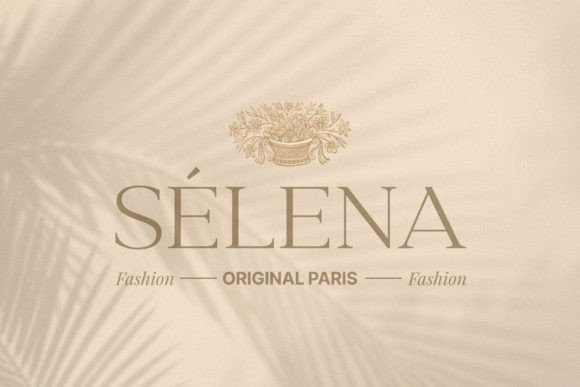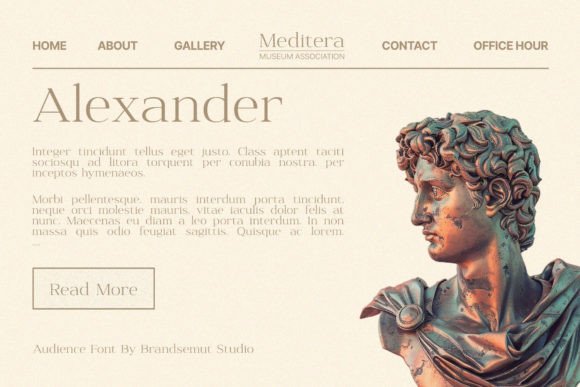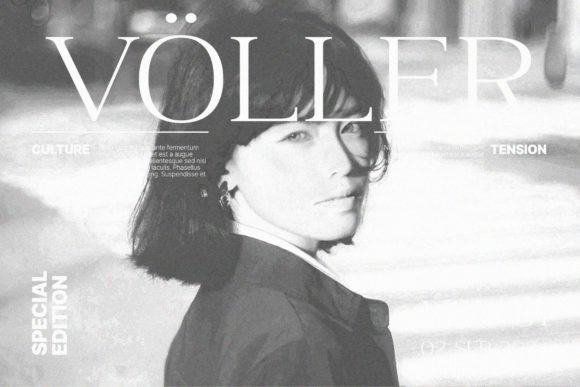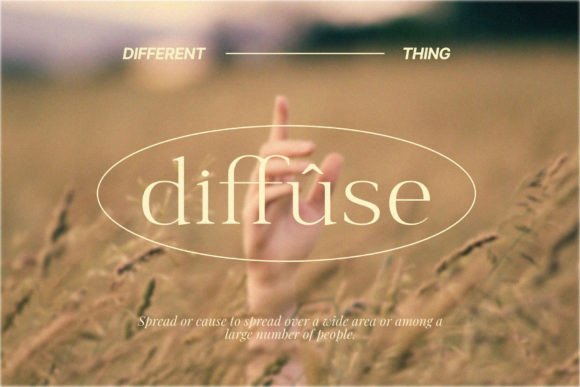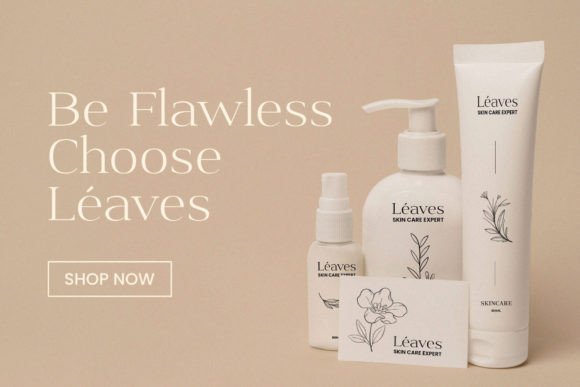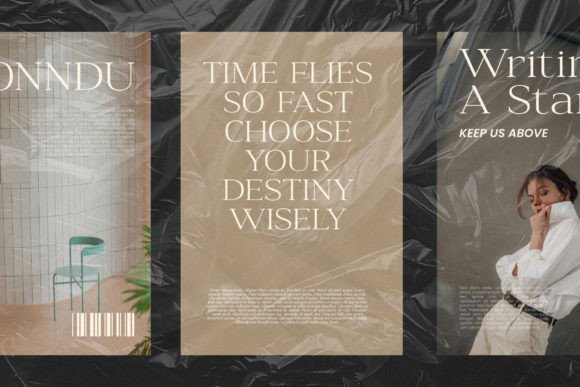
As designers, we’ve all been there – staring at a blank page, struggling to find the perfect font that captures the essence of our creative vision. It’s like searching for the perfect melody to match the rhythm of our souls. And then, suddenly, it hits us – the perfect harmony of lines, curves, and style that elevates our design to new heights.
Meet the Audience Font, a sophisticated serif font designed to make a statement. With its clean lines and smooth curves, it’s the perfect display font for headings, logos, branding, magazines, product packaging, and invitations. Whether you’re a seasoned designer or just starting out, the Audience Font is a valuable addition to your toolkit, offering a touch of class and elegance that’s sure to leave a lasting impression.
Audience Font Key Features
- Size: The font family includes 7 weights, ranging from Light to Extra Bold, allowing for a high degree of customization.
- Resolution: Audience Font is optimized for use at high resolutions, making it suitable for both screen and print applications.
- Unique Characteristics: The font features a unique blend of modern and classic design elements, making it ideal for a wide range of applications, from corporate branding to creative projects.
- Language Support: Audience Font includes comprehensive language support, including Latin, Cyrillic, and Greek scripts, as well as support for many non-Latin scripts.
- Kerning and Ligatures: The font includes advanced kerning and ligature pairs, ensuring that text sets are visually appealing and easy to read.
Audience Font Review
I recently had the chance to work with the Audience font, and I must say it’s an interesting choice for any project. ✨ One thing that works well is its versatility – it can be used for both body text and headings, making it a great choice for a variety of applications.
- ✨ Wide range of weights and styles, from light to bold, making it suitable for different design needs.
- ✨ Clean and modern aesthetic that can help give a project a professional feel.
However, there are some limitations to consider: ⚠️ The font may not be the best choice for large blocks of text, as it can start to feel a bit fatiguing to read.
- ⚠️ Limited character set support, which may cause issues for users who need to use non-Latin scripts.
- ⚠️ Not as readable at smaller font sizes, which can be a problem for projects that require a lot of fine print.
Overall, I’d say the Audience font is a solid choice for projects that require a clean and modern look. While it may not be perfect for every application, it’s definitely worth considering for the right project. With some careful use and consideration, it can be a great addition to your design toolkit.
The Audience font is a sans-serif font that is designed to be highly readable and versatile.
Common use cases for the Audience font include:
1. Headings and titles in presentations and documents.
2. Body text in social media posts and websites.
3. Brand